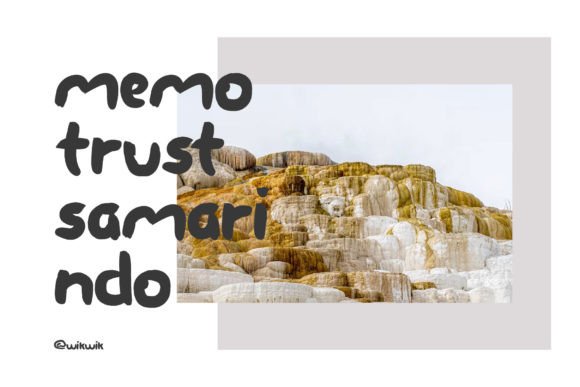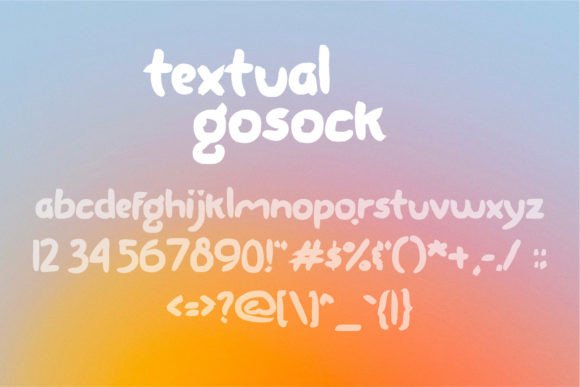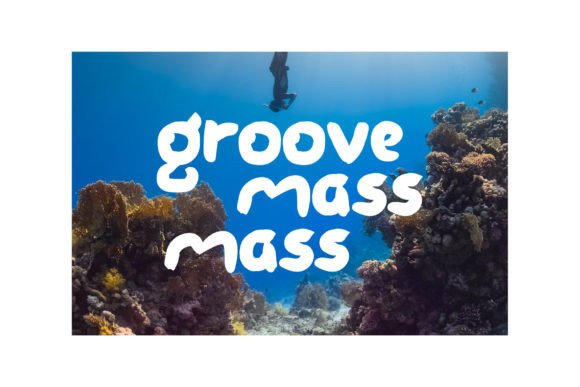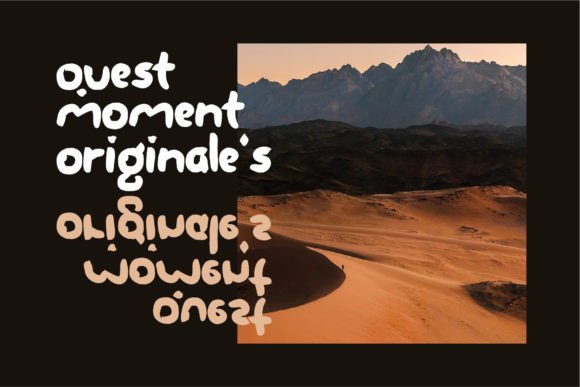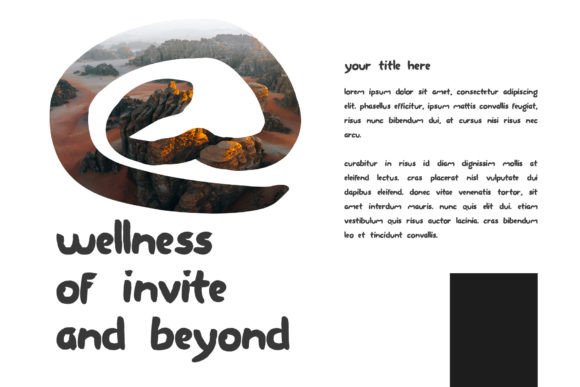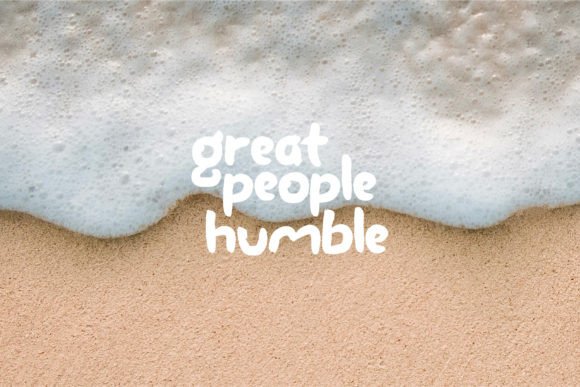
Gosock Font: Elevate Your Designs with a Unique Handwritten Style
In the world of typography, fonts play a crucial role in making or breaking a design. A well-chosen font can elevate your work, making it more engaging, readable, and visually appealing. If you’re a designer, crafter, or simply someone who loves to dabble in creative projects, you’re likely always on the lookout for fresh and exciting font options. That’s where Gosock Font comes in – a stunning display font based on handwritten characters that is sure to take your designs to the next level.
Handwritten fonts have a special charm to them. They evoke a sense of personality, warmth, and human touch that can be difficult to replicate with more traditional or serif fonts. Gosock Font is no exception. With its unique blend of elegant and playful strokes, this font is perfect for adding a touch of whimsy and sophistication to your designs.
What Makes Gosock Font Stand Out
So, what sets Gosock Font apart from other display fonts on the market? Here are just a few of its standout features:
- Unique Character Set: Gosock Font boasts a distinctive character set that is both stylish and highly legible. Each letter, number, and symbol has been carefully crafted to ensure that your text looks great in any context.
- Handwritten Flair: The font’s handwritten style gives it a personal, one-of-a-kind feel that is sure to capture the attention of your audience.
- Display Quality: As a display font, Gosock is optimized for larger text sizes, making it perfect for headlines, titles, and other prominent design elements.
- Versatility: Whether you’re working on a digital project, print material, or craft design, Gosock Font is incredibly versatile and can be used in a wide range of applications.
Gosock Font is an excellent choice for designers and crafters who want to add a touch of elegance and personality to their work. Here are just a few ways you can use this amazing font:
- Branding and Logo Design: Use Gosock Font to create a unique and memorable logo that reflects your brand’s personality.
- Digital and Print Materials: Add a touch of sophistication to your business cards, brochures, social media graphics, and other marketing materials.
- Crafting and DIY Projects: Gosock Font is perfect for crafters who want to add a personal touch to their projects, such as handmade cards, gift tags, and scrapbooking.
Why Choose Gosock Font?
With so many fonts available, why choose Gosock Font? Here are just a few compelling reasons:
- High-Quality Design: Gosock Font is meticulously designed to ensure that it looks great in any context.
In conclusion, Gosock Font is an exceptional display font that offers a unique blend of style, elegance, and personality. Whether you’re a designer, crafter, or simply someone who loves to create, this font is sure to become a valuable addition to your toolkit. With its handwritten charm, versatility, and high-quality design, Gosock Font is the perfect choice for anyone looking to elevate their designs and take their work to the next level.